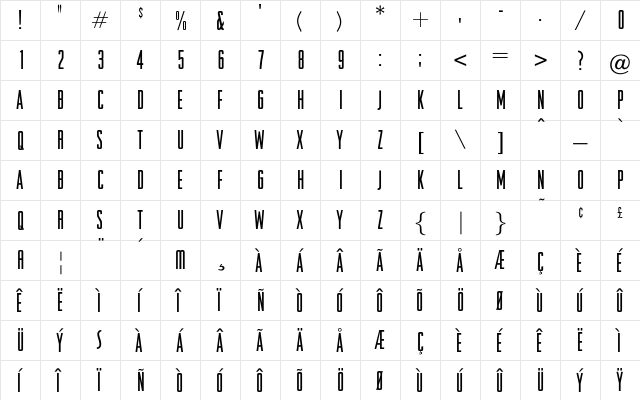
ORaleigh Gothic
| Style | Gothic |
Design Context for ORaleigh Typeface
ORaleigh takes a clean, functional approach — its unadorned letterforms prioritise legibility and work reliably across screen and print environments.
Font Pairing: Works well alongside a characterful serif or display font that can carry the expressive load while ORaleigh handles the functional copy.
Pro Tip: Use ORaleigh for UI labels, navigation, and short-form body copy where clean legibility is the priority.